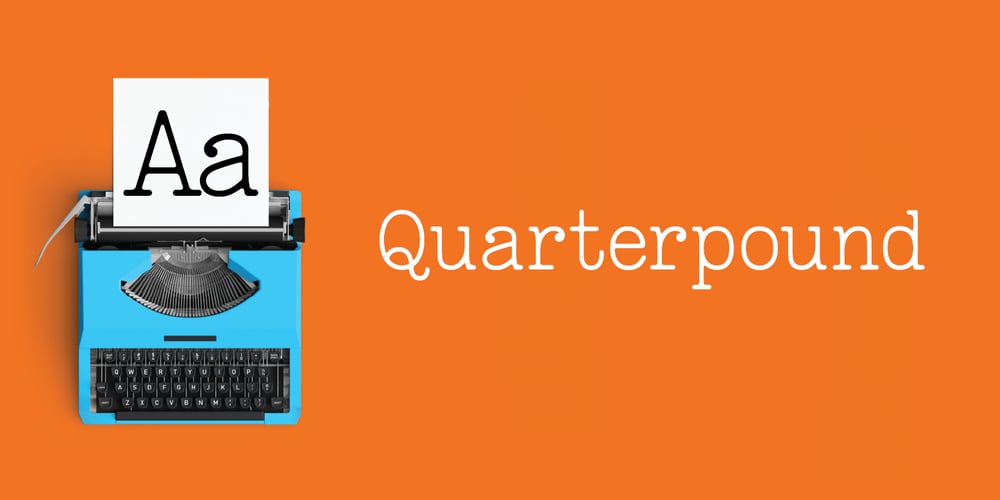
Quarterpound Font Family was designed by Tomasz Myczka and published by Caput Mortuum. Quarterpound contains 1 styles and family package options. Quarterpound is loosely inspired by fonts used in Remmington typewriters. It has proportional design to create a more unique feel and improve its readability. It was created to fill a gap between edgy monospaced fonts and grungy typewriter imitations. It’s meant to look credible in print and digital screens.